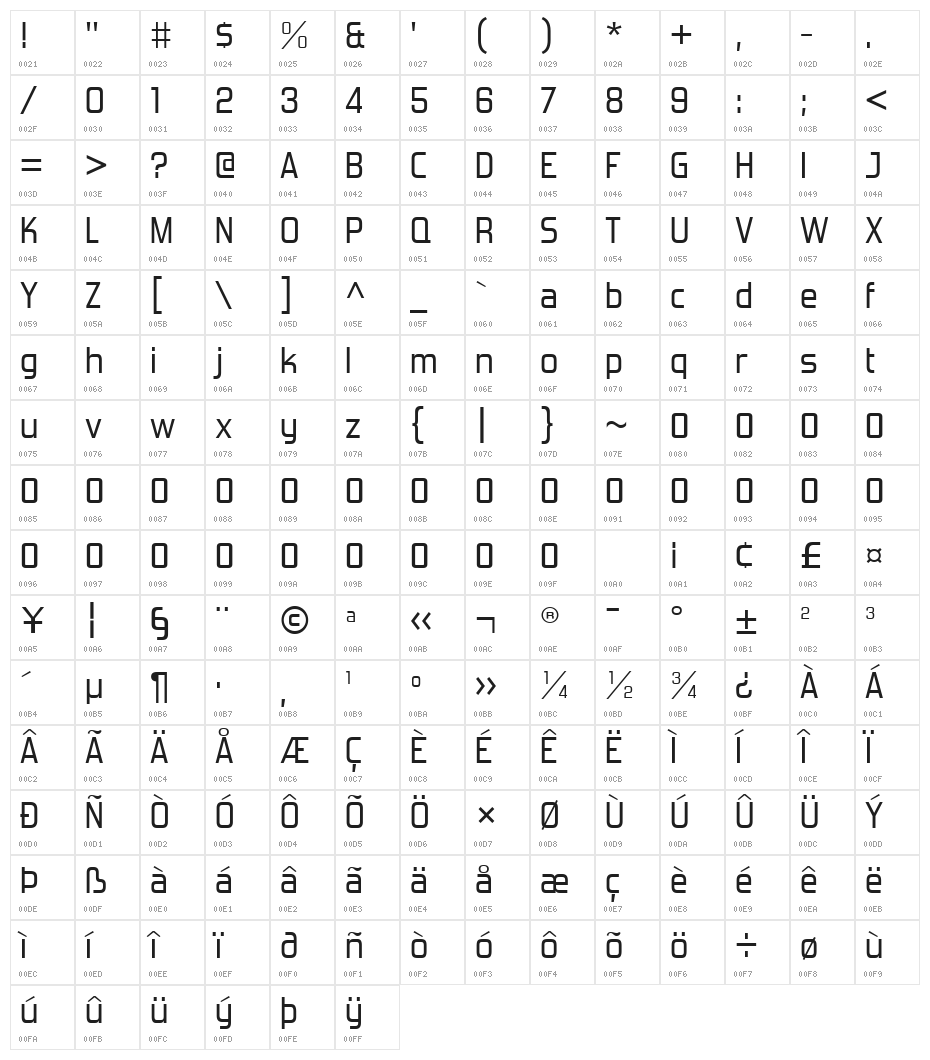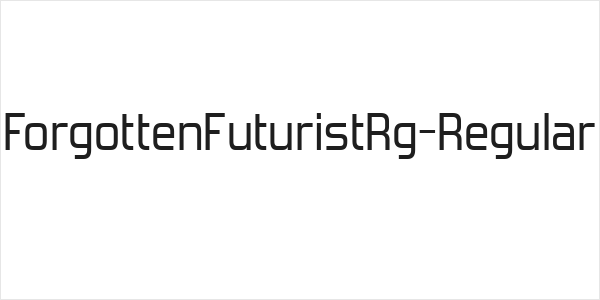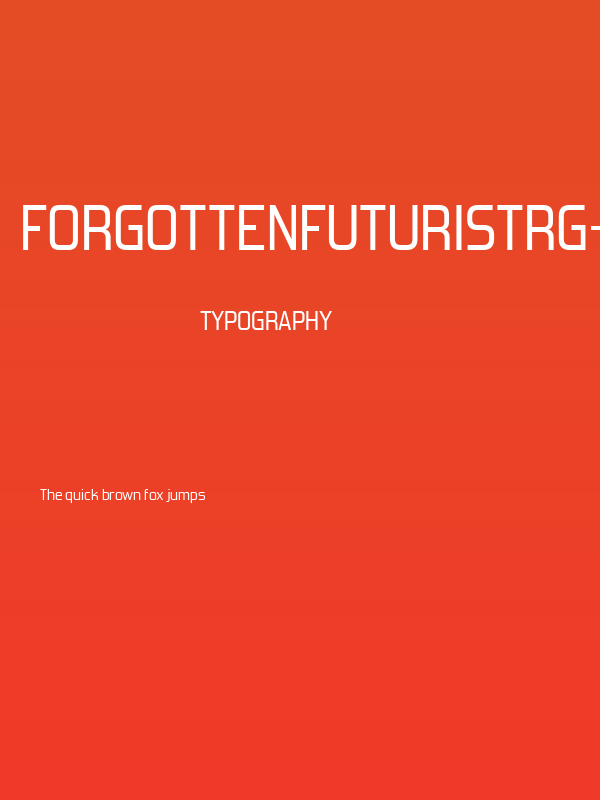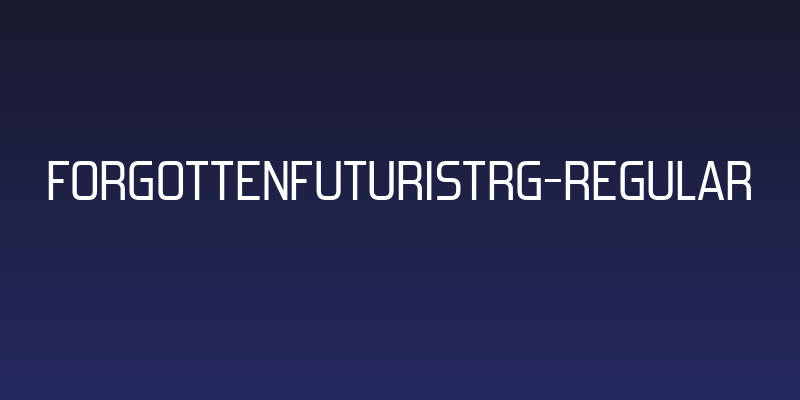
ForgottenFuturistRg-Regular Font
ForgottenFuturistRg-Regular Description
This font features a clean and modern sans-serif design with a geometric structure. The characters are uniform in width, providing a balanced and cohesive look. The uppercase letters are bold and assertive, while the lowercase letters maintain a consistent height, enhancing readability. The numerals are clear and distinct, making them suitable for various applications. Special characters are well-defined, adding versatility to the font. The overall style is sleek and contemporary, making it ideal for digital and print media.